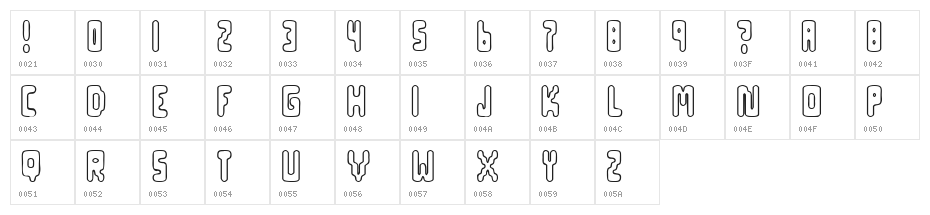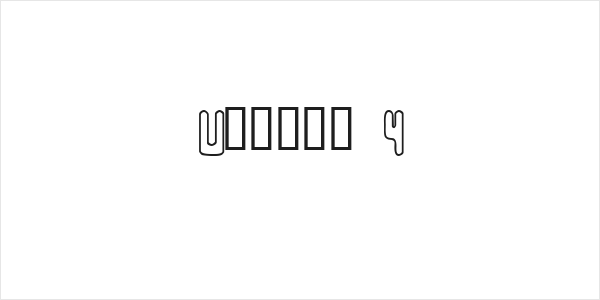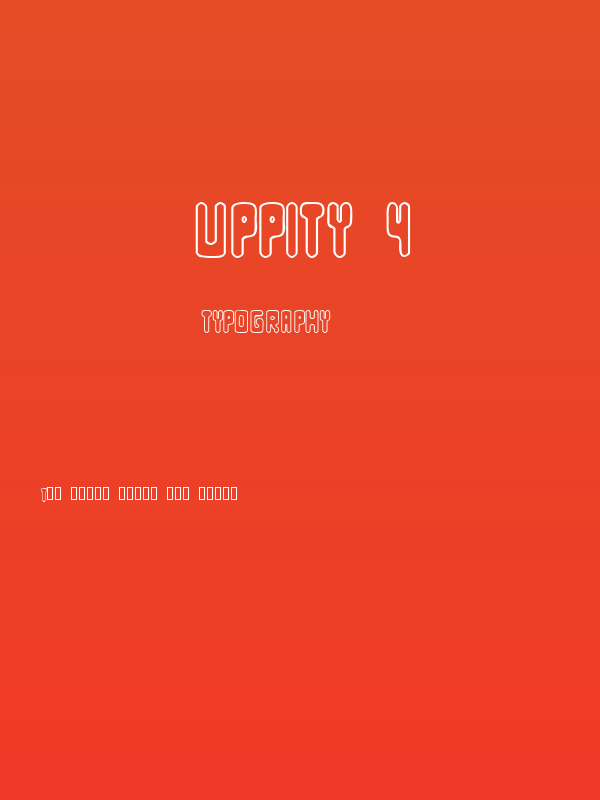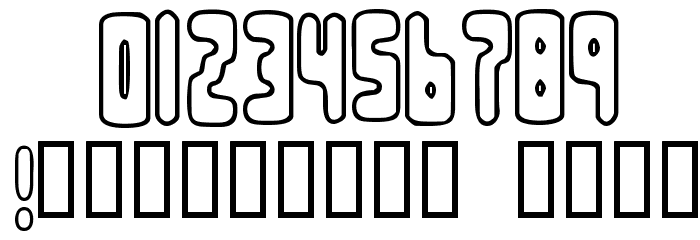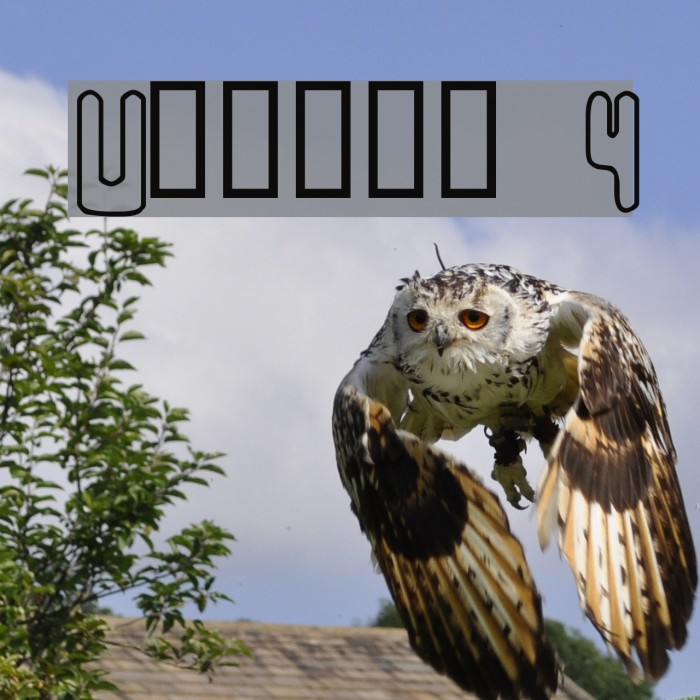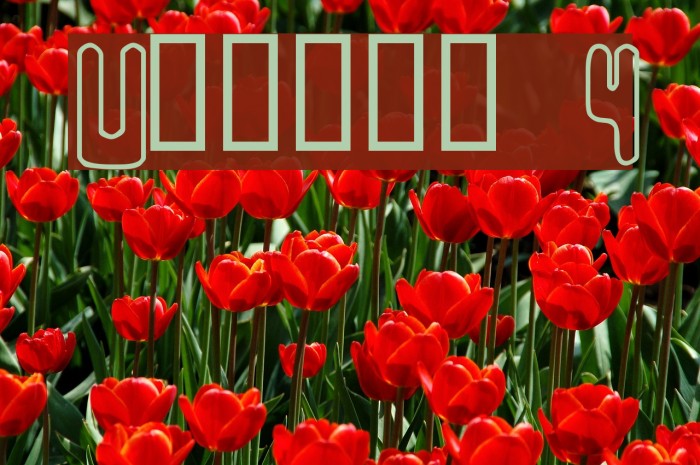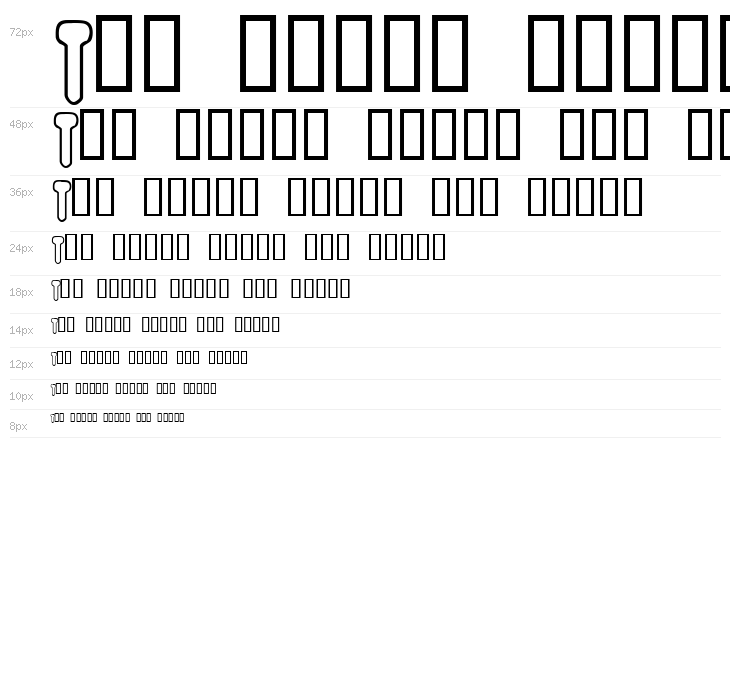
Uppity 4 Font
Uppity 4 Description
This font features a playful and bold outline style, characterized by thick, rounded edges and a hollow interior. The uppercase letters are uniform in height, maintaining a consistent visual rhythm. The numbers and special characters follow the same design principles, ensuring a cohesive look throughout. The font's unique style makes it stand out, with its cartoonish and fun appearance, ideal for creative and informal projects.
| Overall Style | Playful, Cartoonish |
| Proposed Projects | Ideal for children's books, comic strips, playful branding, and party invitations. |